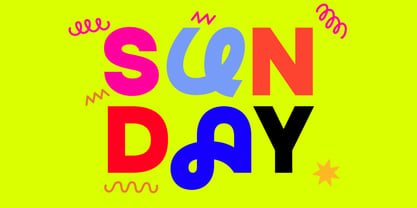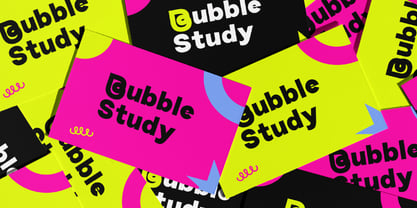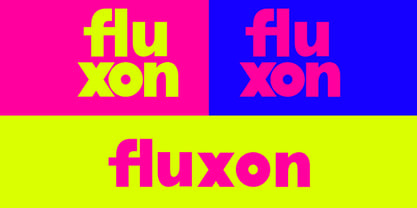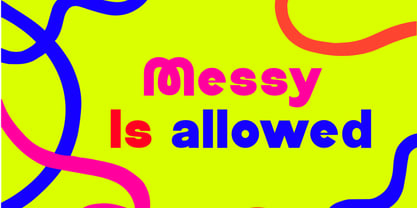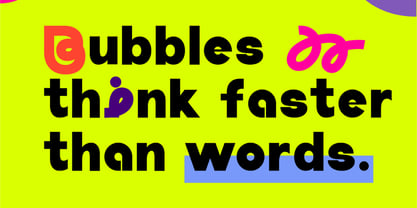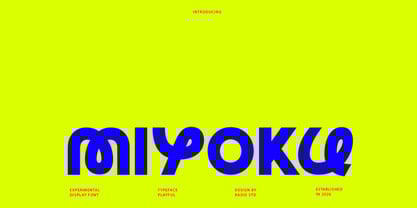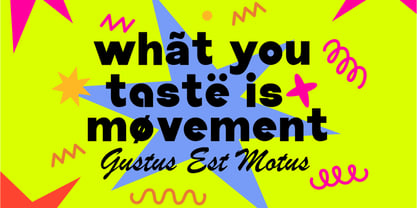
Miyoku
von Rasio Studio
Miyoku is a bold, experimental display font bursting with personality and playfulness. Its exaggerated, custom-styled glyphs and high-contrast letterforms make it perfect for grabbing attention in creative projects. Featuring a full character set of uppercase and lowercase letters, numbers, and symbols, Miyoku is designed for maximum visual impact. Miyoku is highly relevant for designers looking to make a statement with unconventional, bold typography. Perfect for event posters, album covers, social media graphics, fashion branding, or experimental editorial design, it brings energy, personality, and impact. It thrives in environments where creativity and visual pop are key especially in digital or youth-focused marketing materials.
Designer: Fajar Indra
Foundry: Rasio Studio